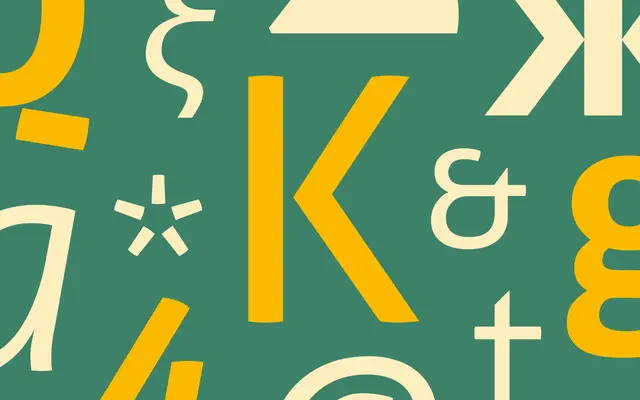
Aller
Dalton Maag · Marc Weymann · 2010
A warm humanist sans by Marc Weymann with three text weights, italics and a Display cut that swaps in small caps for impact.
Dalton Maag's Aller is a humanist sans by Marc Weymann, designed and developed 2010 to 2023. The family carries three text weights (Light, Regular, Bold) with matching italics and a Display style that uses small caps in place of some lowercase letters for added impact. It covers Latin with support for over 840 languages.
Dalton Maag describes Aller as a warm, characterful and inventive humanist sans typeface, with three text styles plus a more extreme Display cut that uses small caps for some lowercase letters.